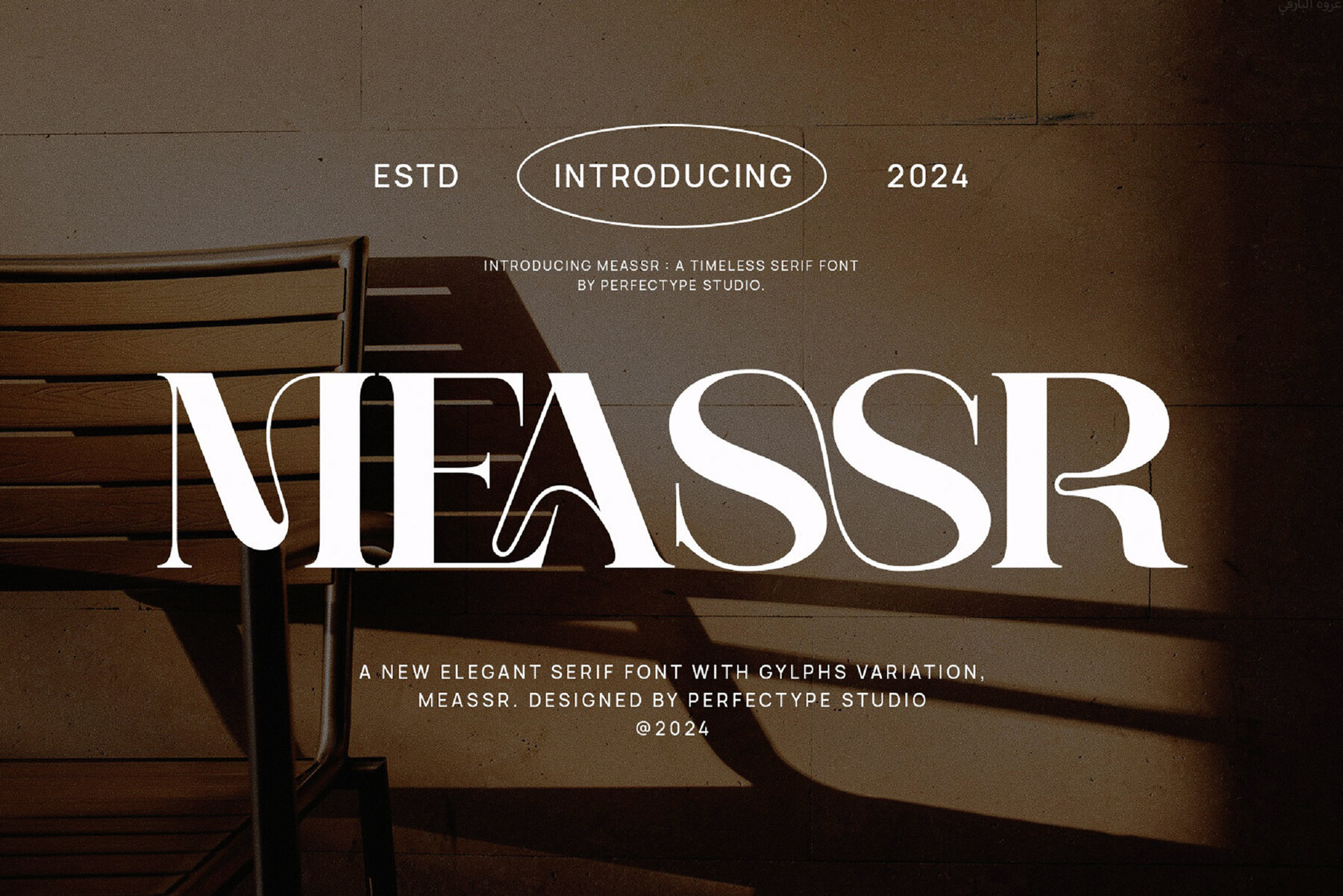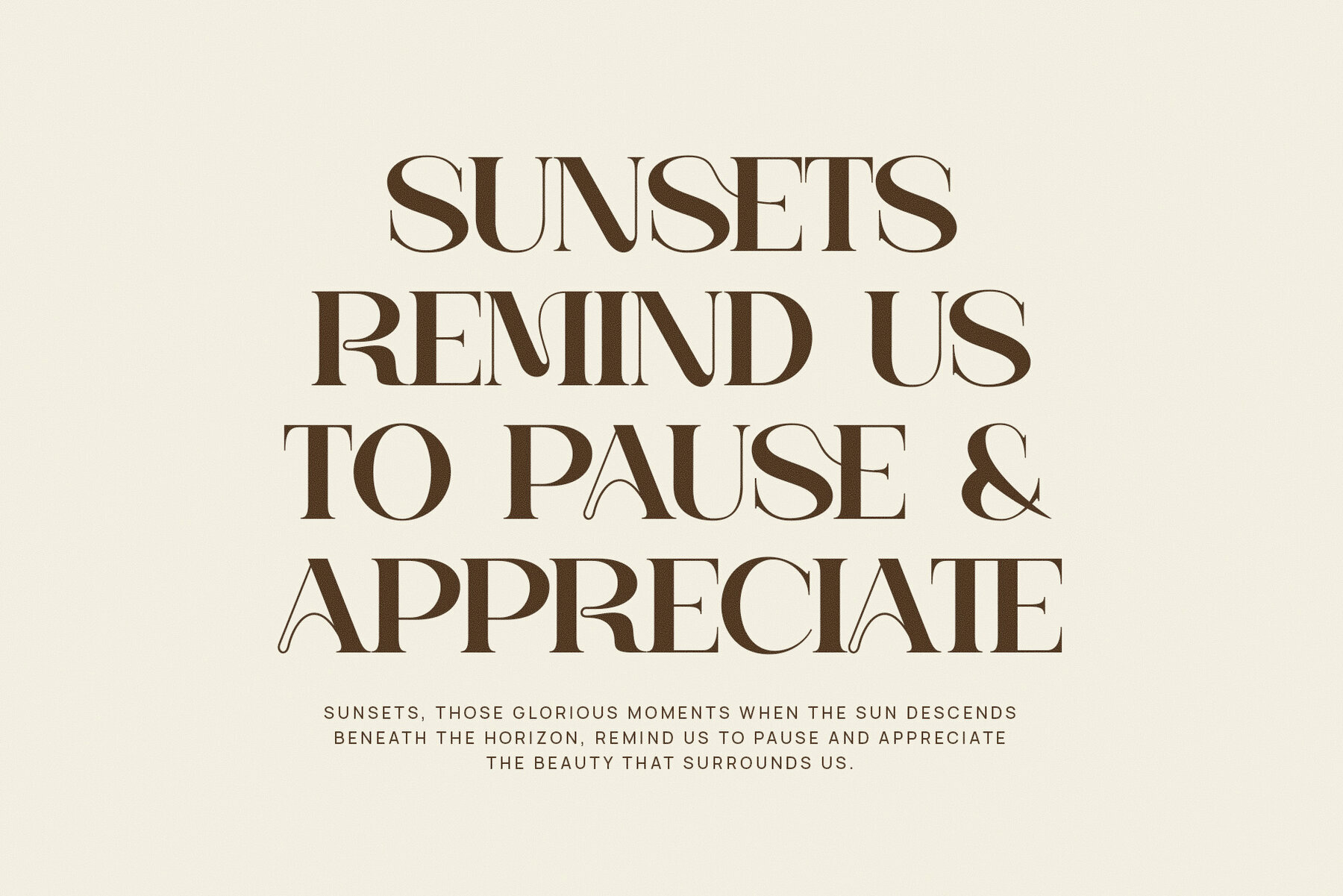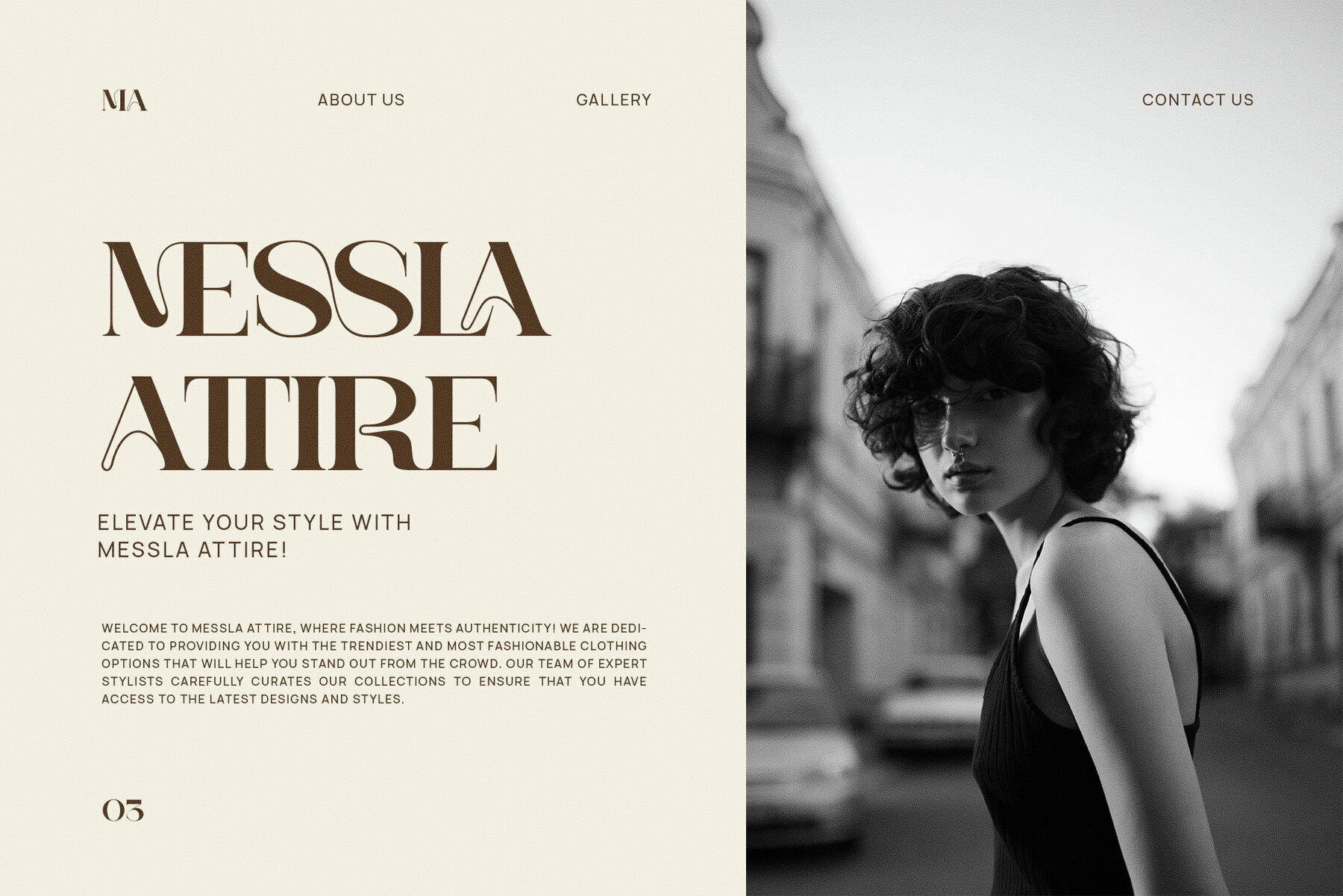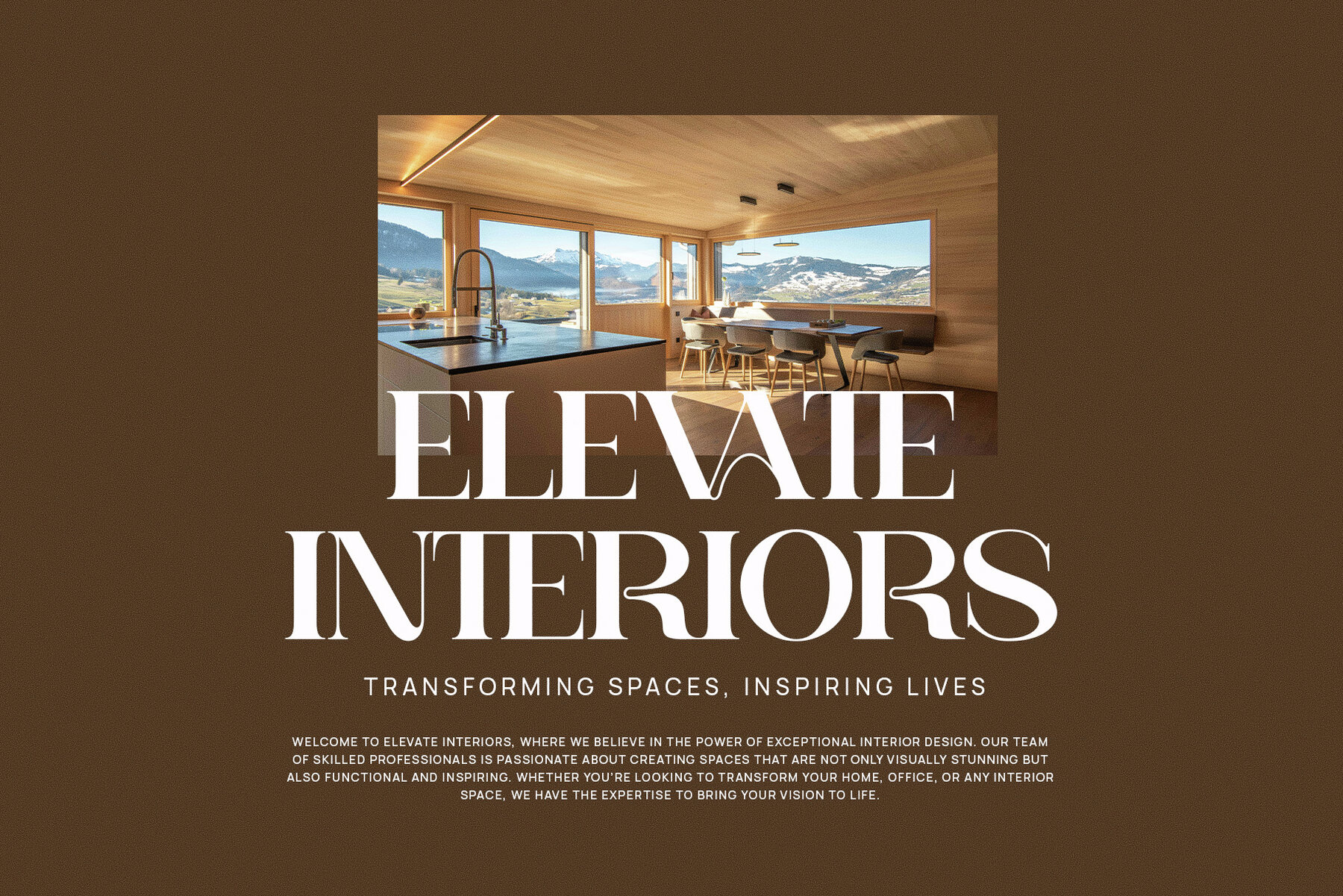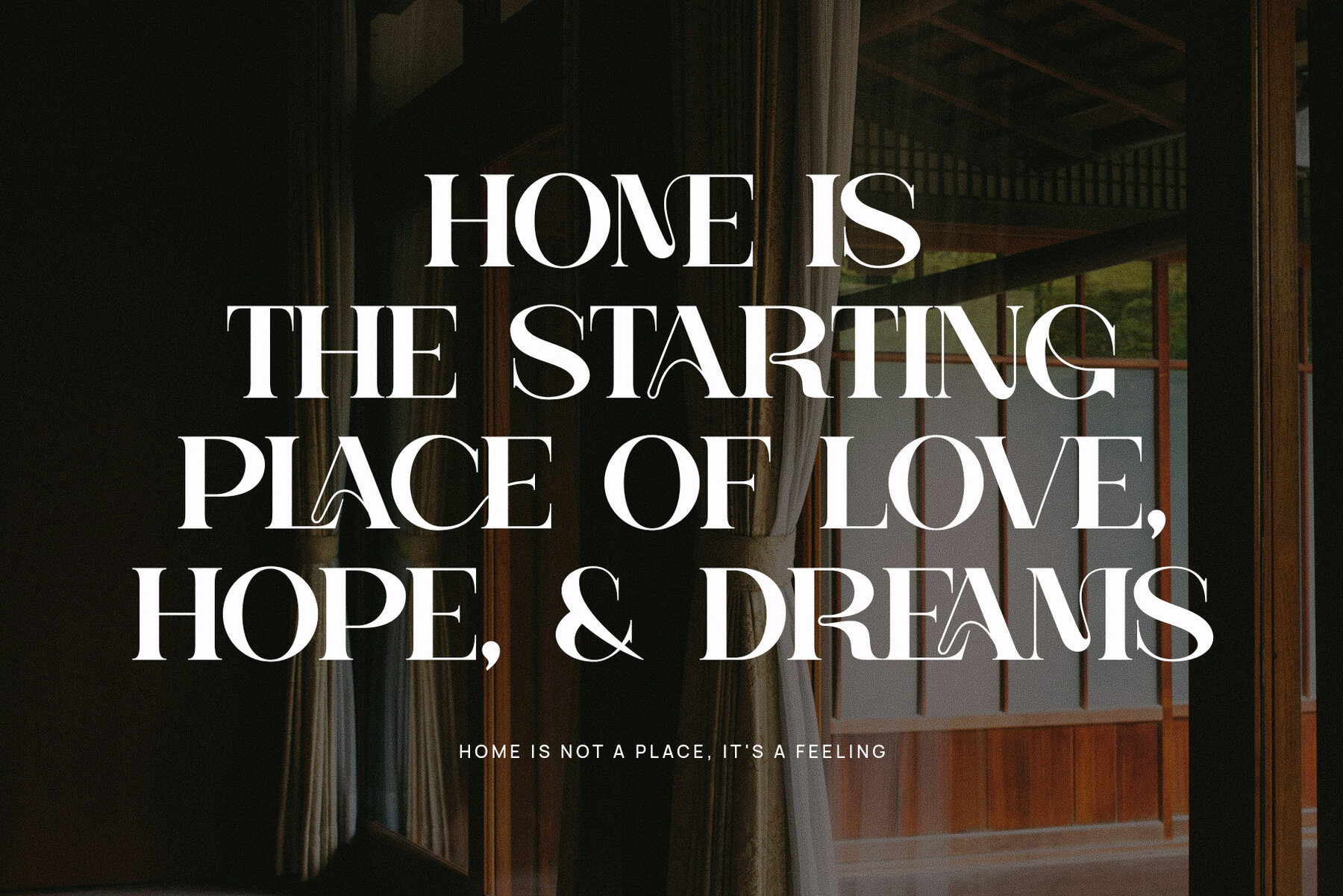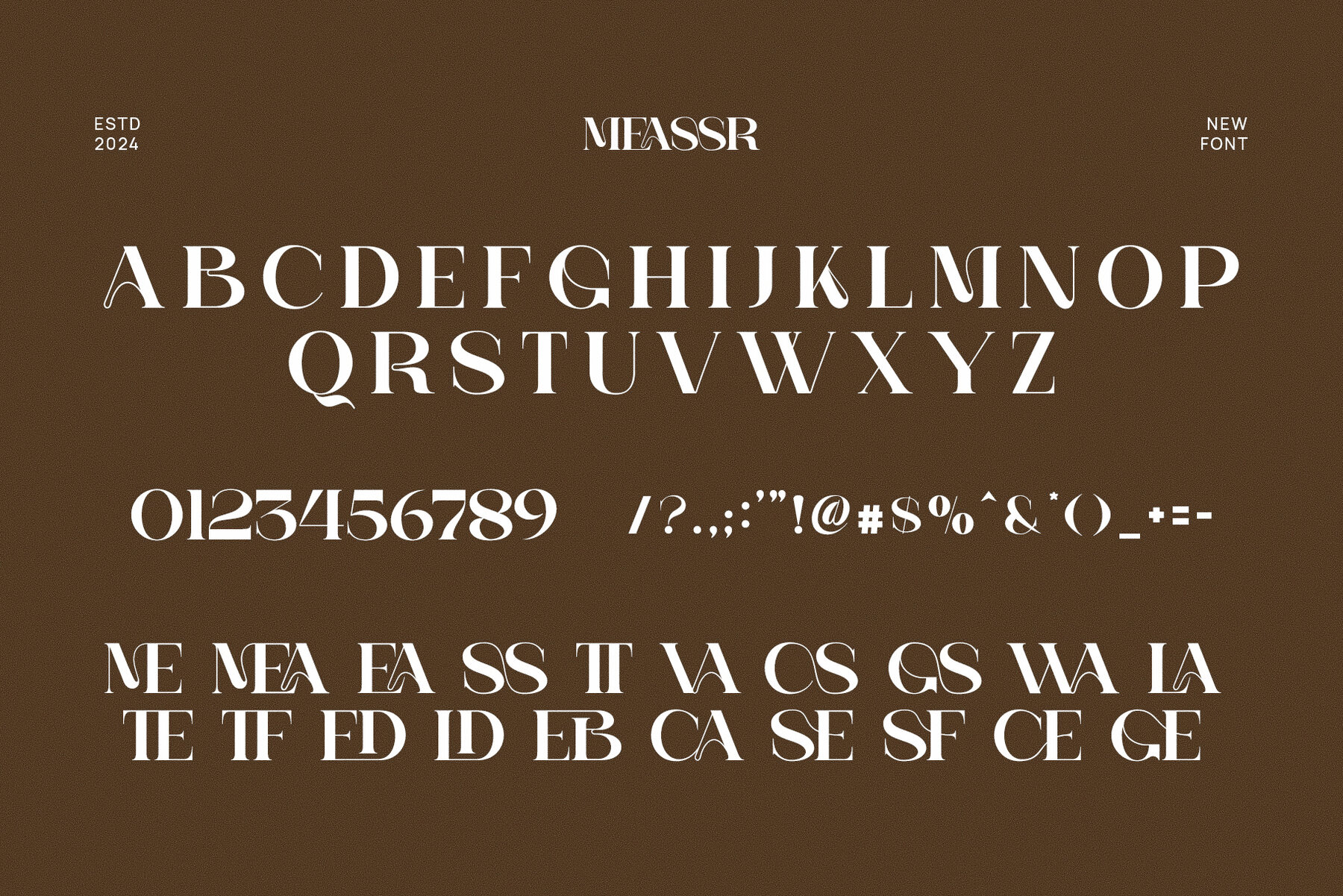
Meassr Font
Meassr
Meassr Elegant Serif Font is a sophisticated typeface that seamlessly combines modern design with classic elegance. Its distinctive and refined shape captures attention with beautifully detailed serifs and fluid letterforms. Perfectly crafted for those seeking to infuse refinement and luxury into their projects, Meassr showcases an array of stunning ligatures and alternate characters, enhancing custom typography possibilities. This font is ideal for crafting sleek logos, timeless brand identities, or vibrant promotional materials, rendering each project with a premium aesthetic. Its balanced proportions ensure readability while maintaining a sophisticated appearance, making it suitable for both display and body text.
Meassr thrives in industries such as luxury fashion, high-end boutique branding, food and beverage, and upscale magazines. It excels in creating memorable logos, elegant websites, stylish product packaging, and impactful advertisements. Regardless of whether your project is digital or print, Meassr brings an elegant flair that ensures your design stands out and leaves a lasting impression. This font embodies refined luxury and modern charm, making it the optimal choice for any creative endeavor that demands both beauty and functionality, while effectively communicating brand elegance and sophistication with each letter.